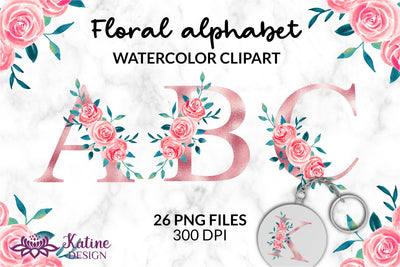
Rose gold floral alphabet letters clipart Sublimation flower font Floral monogram letters floral letters flower alphabet, alphabet clipart letters clipart, monogram alphabet, alphabet letters, printable alphabet, wedding letters, letters with flowers
Rose gold alphabet letters clipart Sublimation flower font floral letters flower alphabet, alphabet clipart, letters clipart. Png Files for Sublimation and Graphic Design